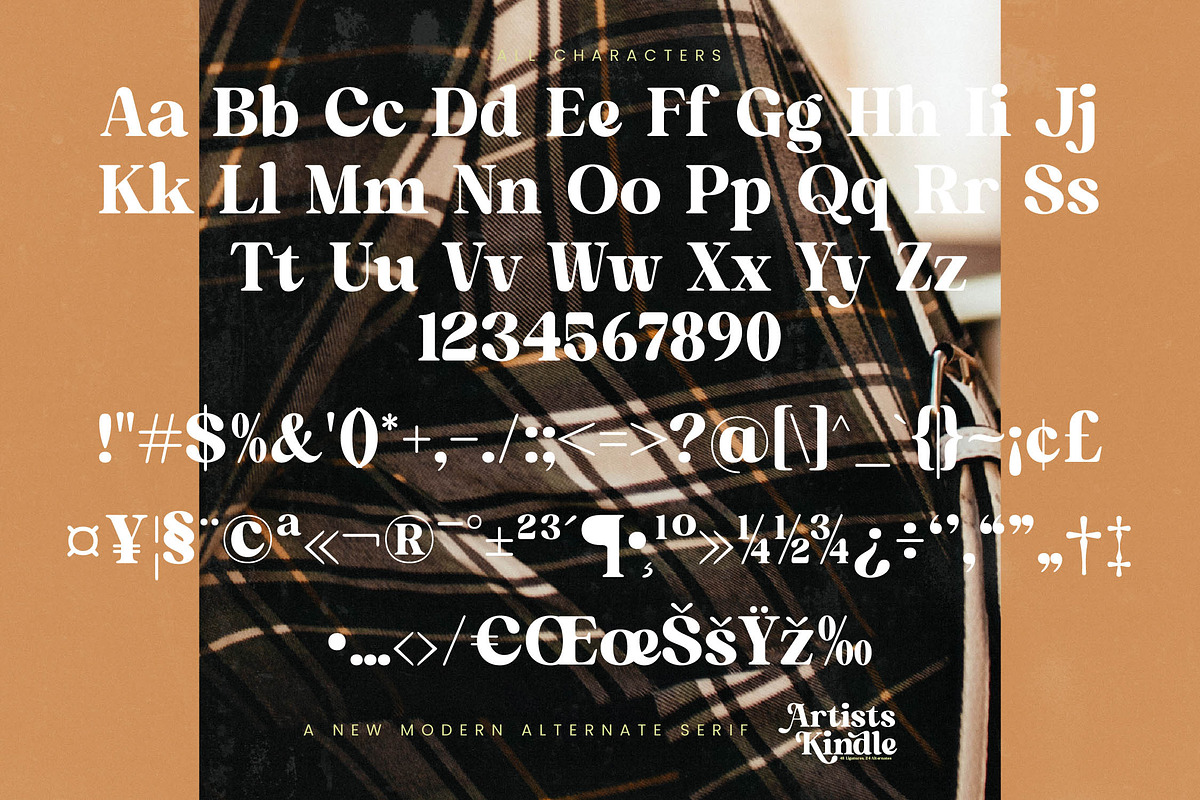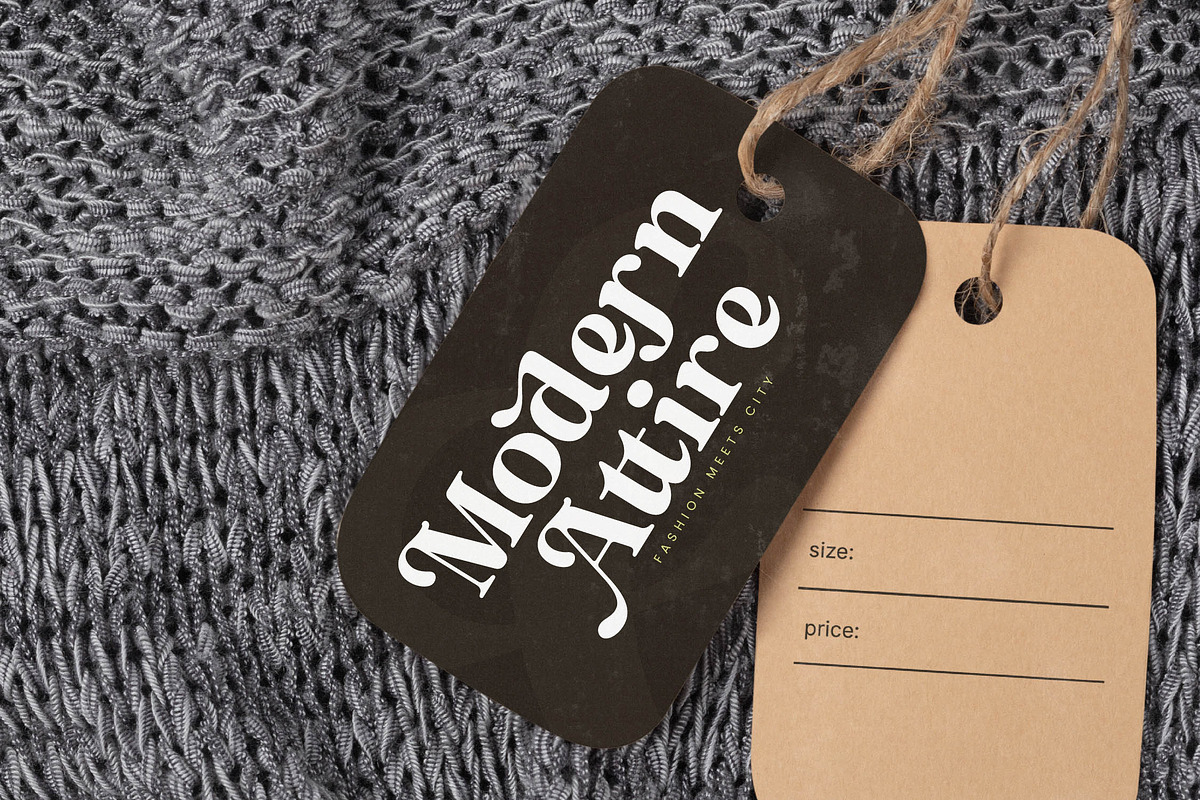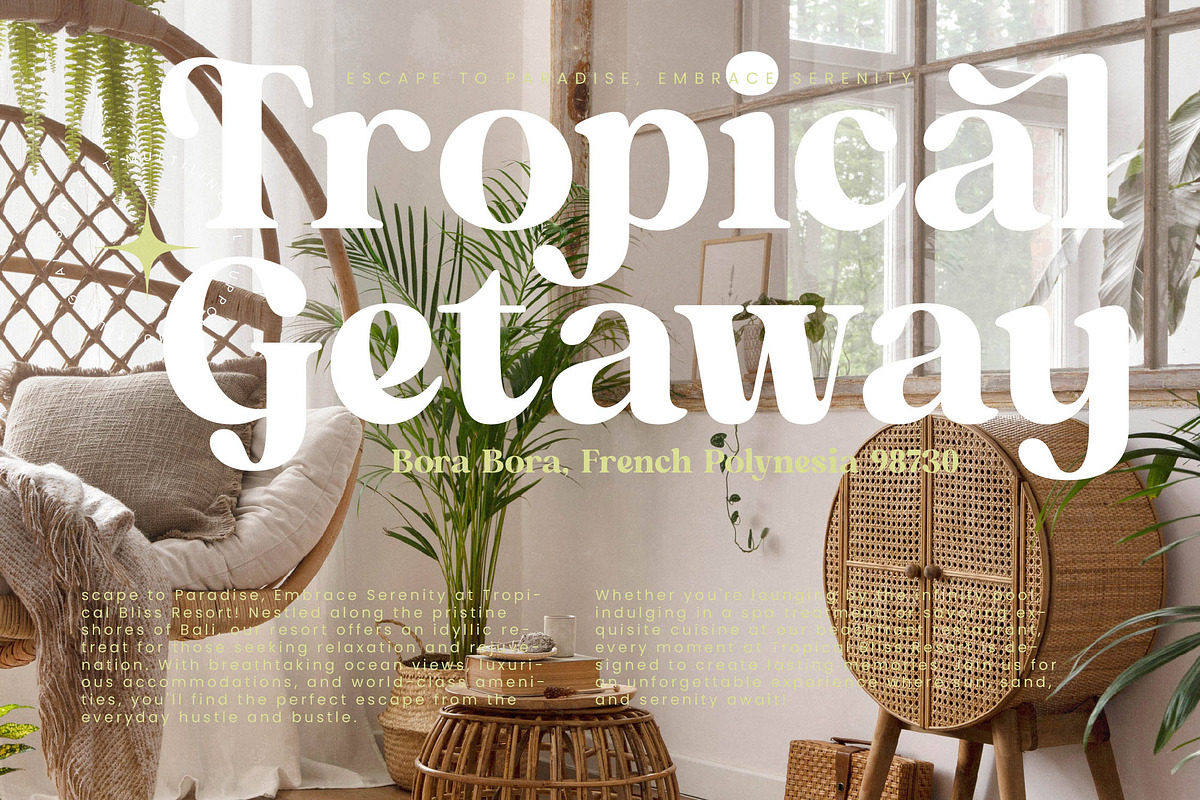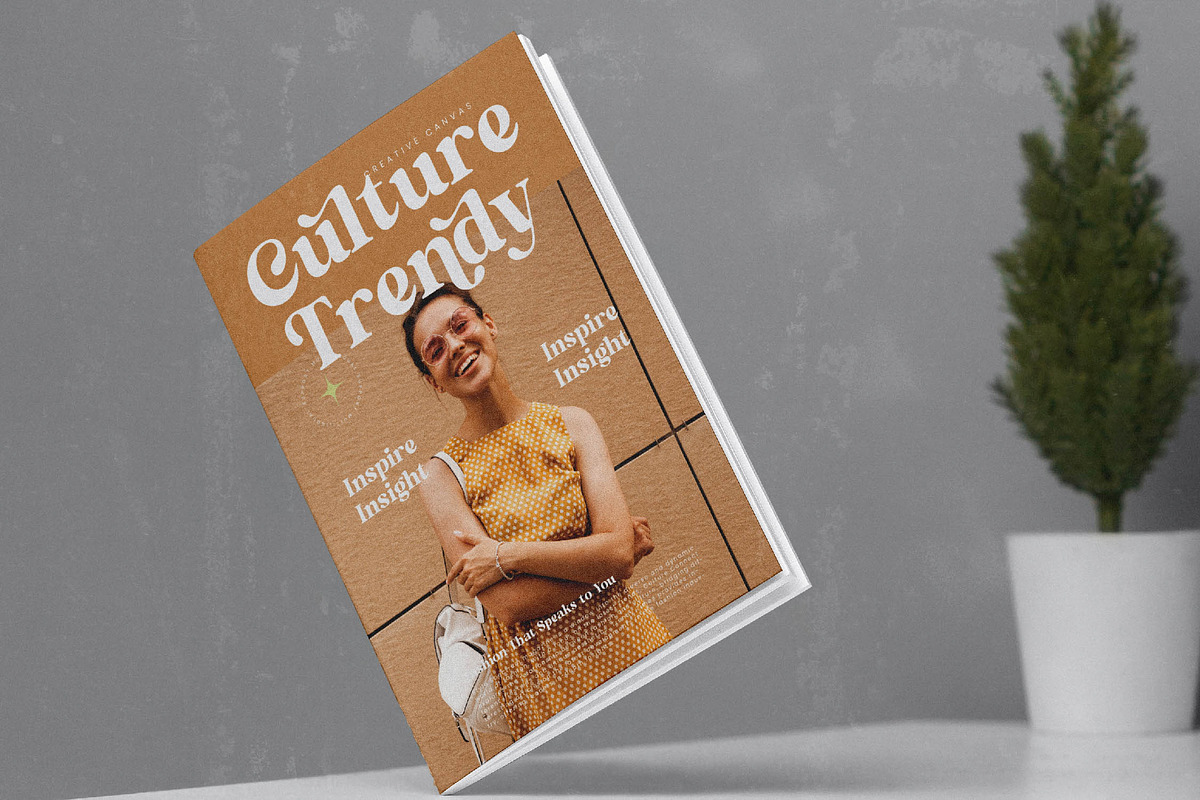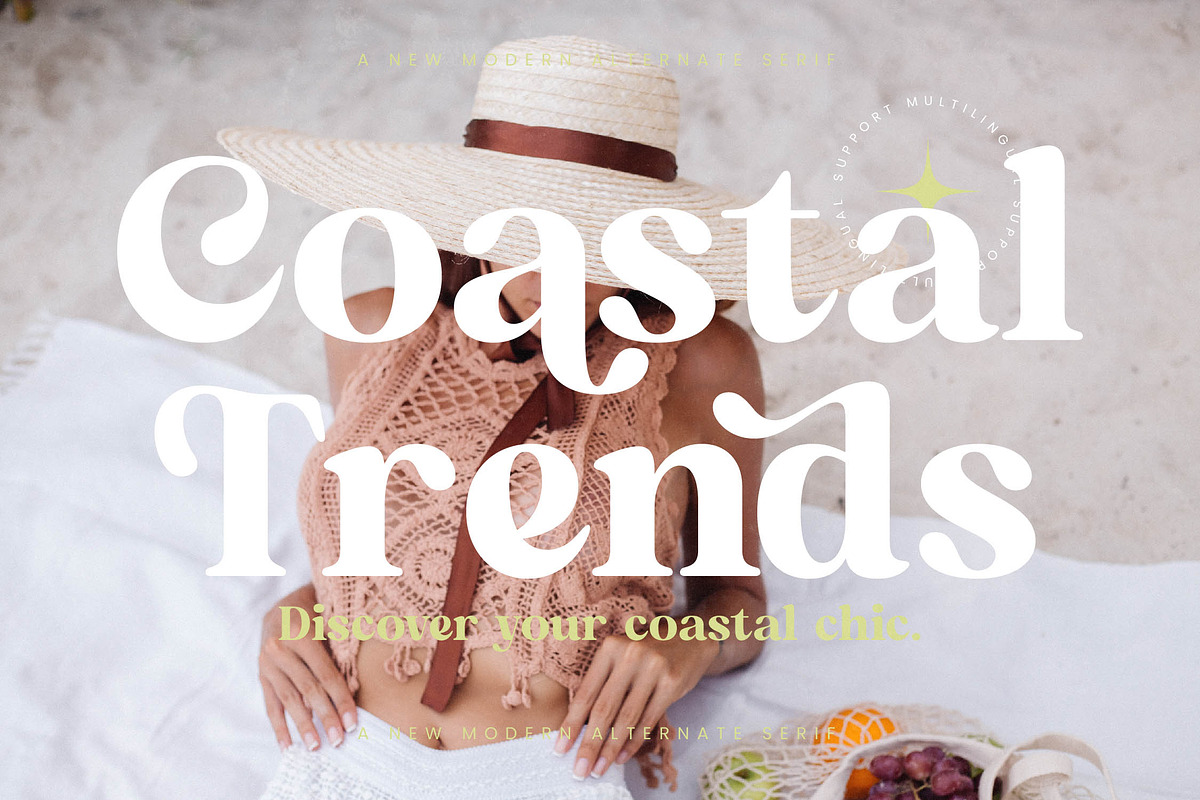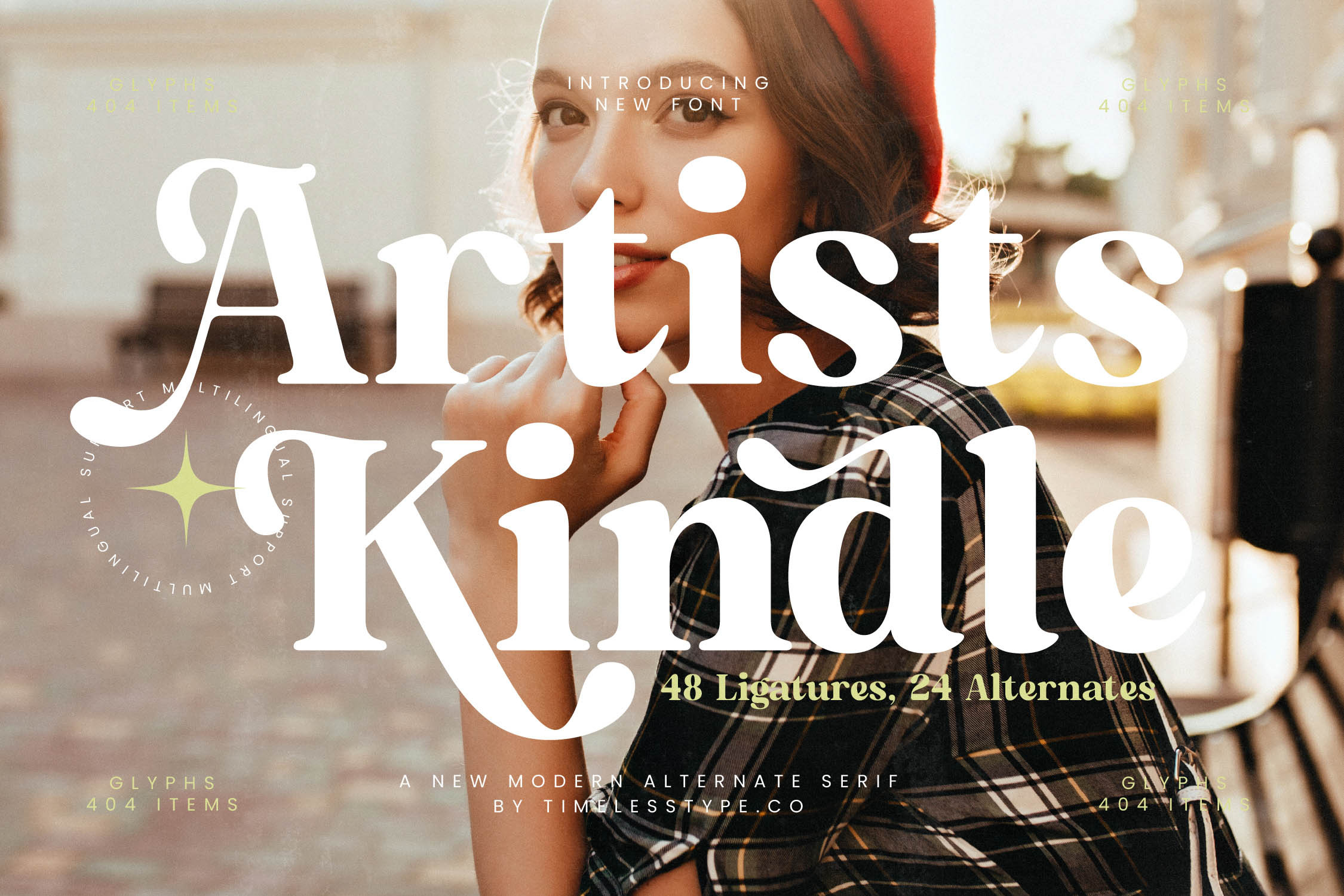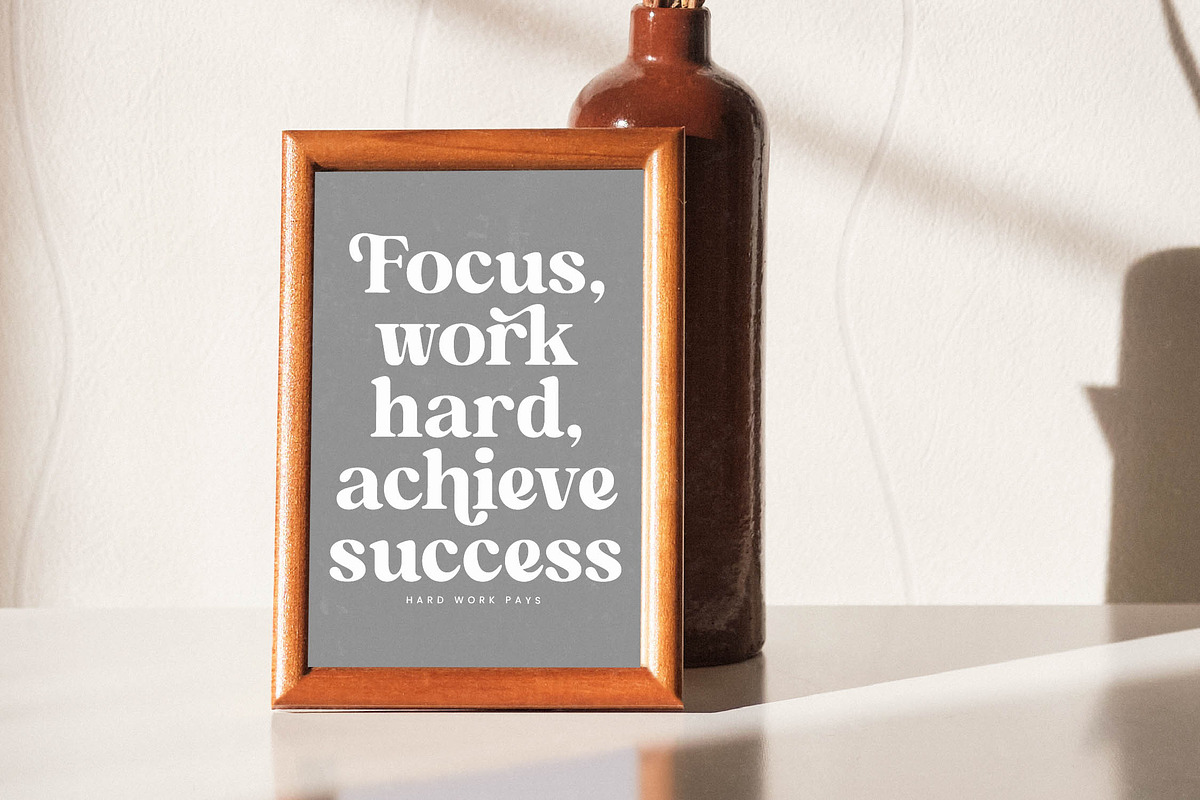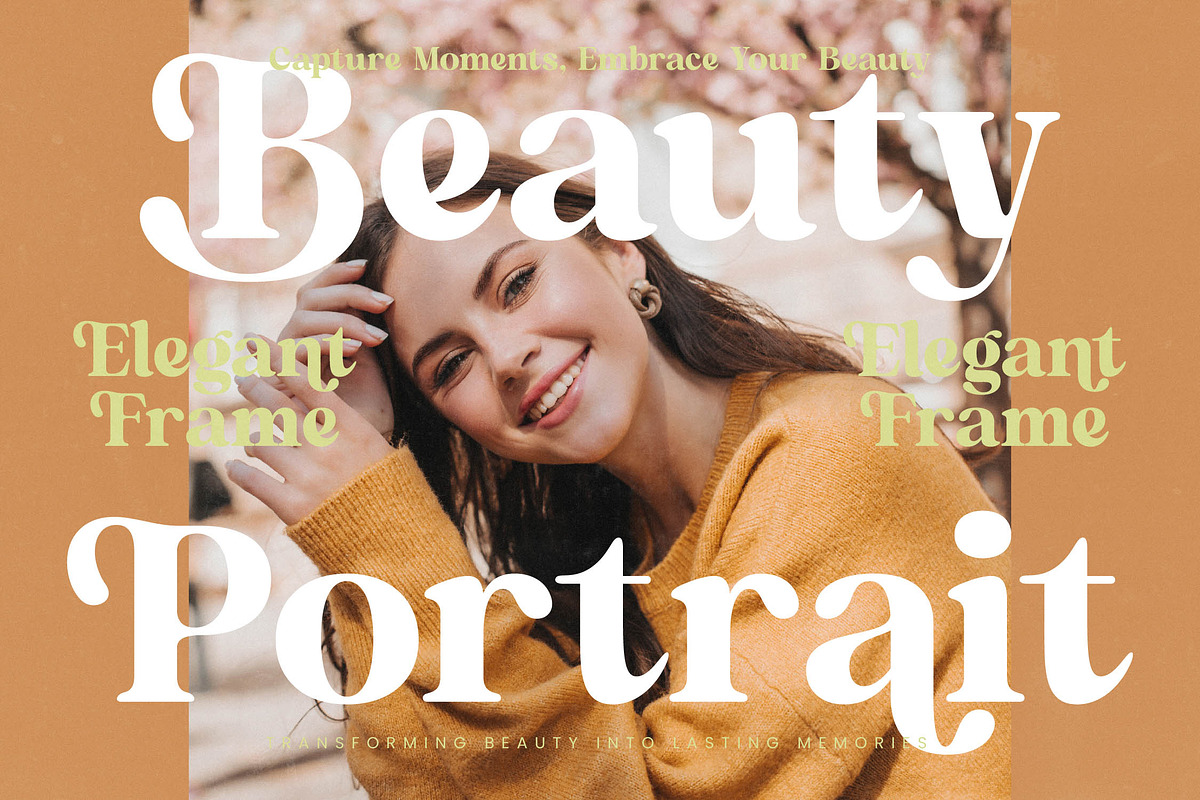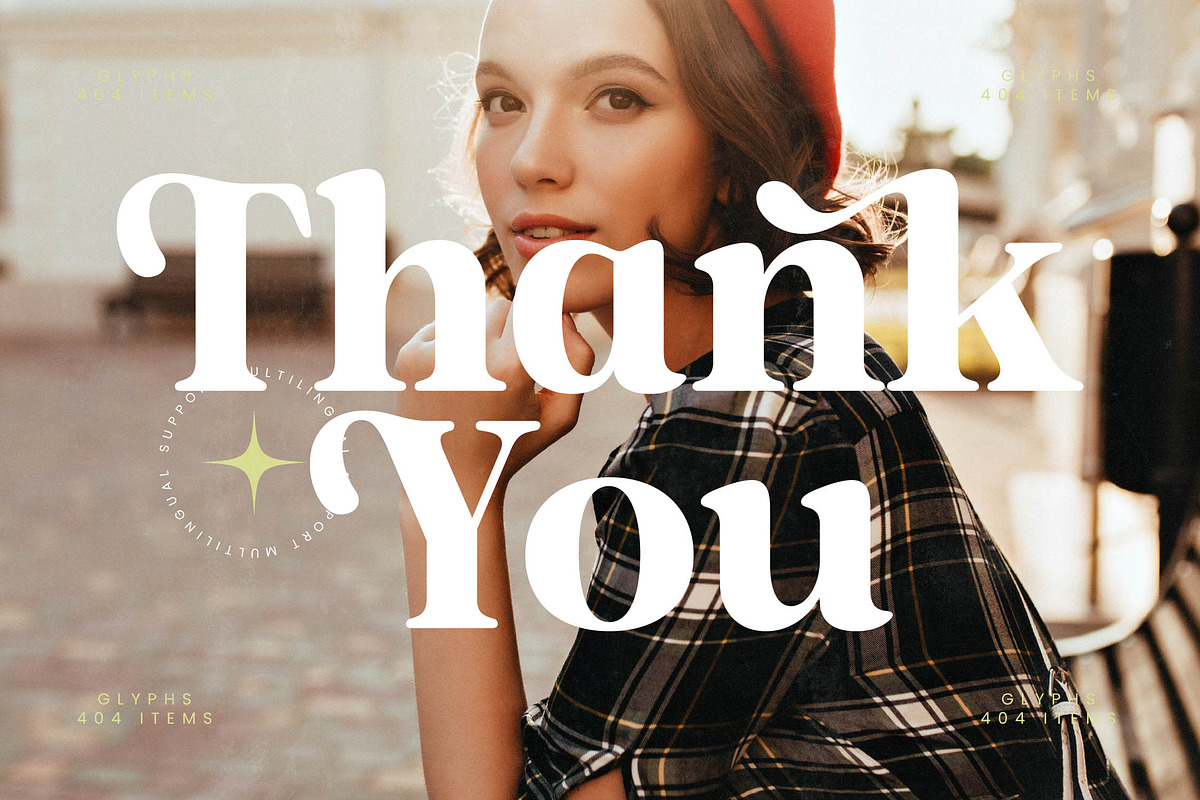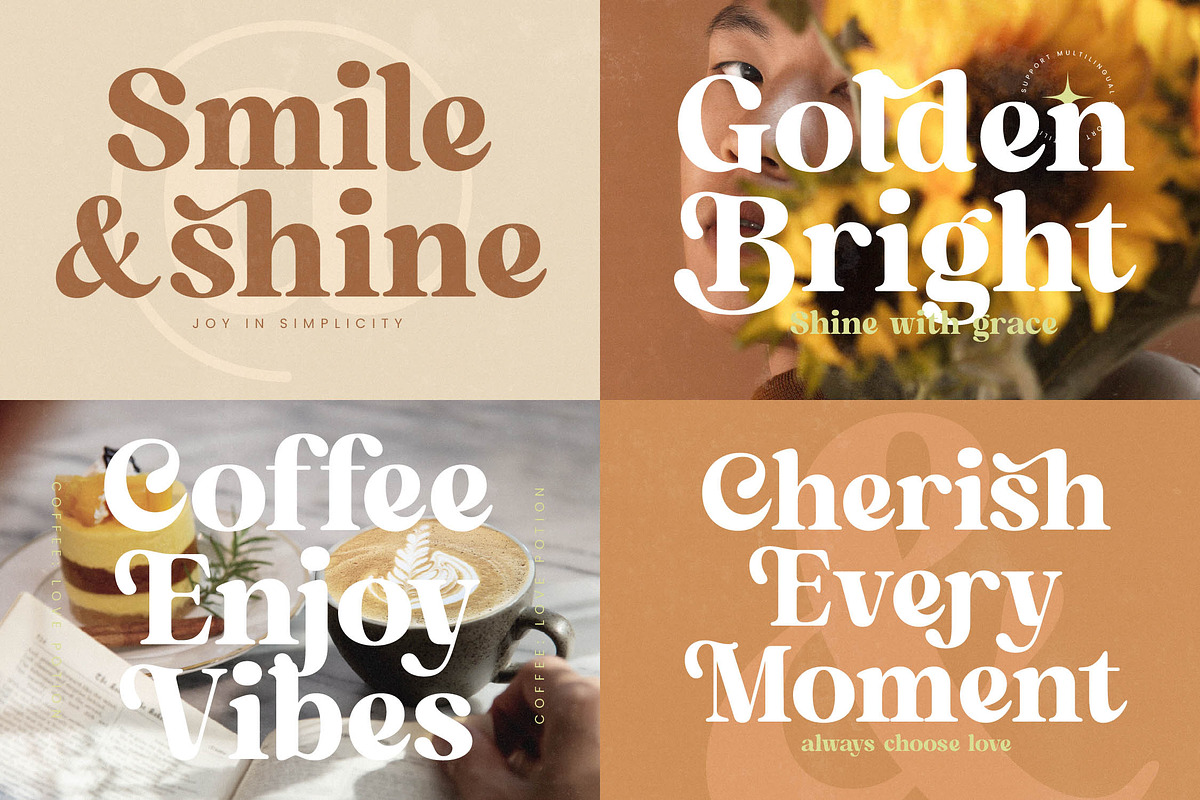
Artists Kindle Modern Serif Font
Elevate your creative vision with Artists Kindle, a masterpiece of typographic elegance designed to ignite inspiration in every letterform. This font blends timeless sophistication with a contemporary edge, making it an essential tool for designers seeking a unique voice in a crowded digital landscape.
Inspired by the delicate balance between classical artistry and modern minimalism, this typeface captures the essence of a sun-drenched European studio. It draws from the heritage of traditional serif forms while infusing them with fluid, organic strokes that feel both nostalgic and entirely fresh for today's aesthetic standards.
With its striking modern serif display aesthetics, this typeface is engineered for maximum branding impact and visual storytelling. The high-contrast serif details create a sense of luxury typography that commands attention, while its refined curves make it the ultimate editorial font for sophisticated layouts and premium headers.
Perfectly aligned with the current modern serif trend, this typeface addresses the growing demand for character-driven typography in the digital age. It stands out among standard editorial display fonts by offering a bespoke look that feels hand-crafted yet professionally polished for the most demanding design projects.
This versatile typeface is the ideal choice for high-end logo design and comprehensive visual branding projects across diverse industries. Whether you are crafting luxury packaging, designing a chic fashion magazine, or creating elegant wedding invitations, its editorial flair ensures a professional and memorable result every time.
Packed with creative flexibility, this font includes a vast library of ligatures and unique alternates that allow for endless customization and typographic exploration. The addition of decorative swashes and full multilingual support ensures that your designs speak to a global audience using a wide range of international characters.
- Ligature 48 Alternate 24